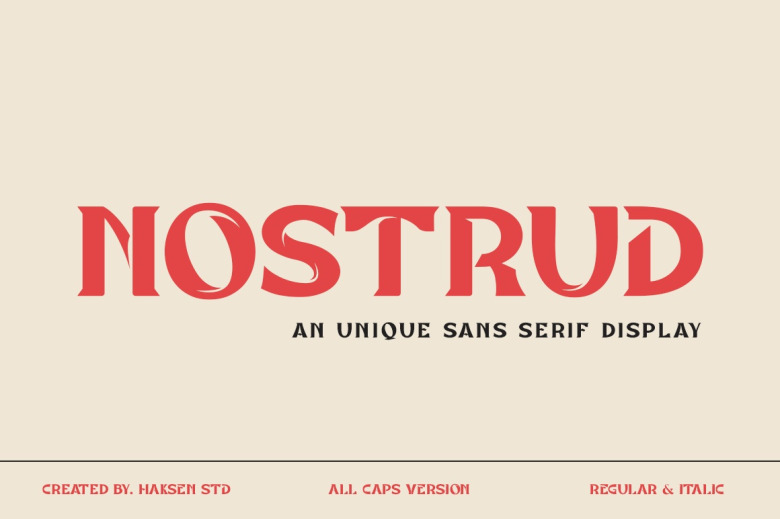
Nostrud Font
Nostrudis is a Bold Serif Display handmade font with a unique feel The typeface name is Haksen. Its extensive set of uppercase provide for a myriad of design possibilities, and is well suited for headlines, logos, posters, packaging … t-shirts you name it!
Nostrud Display Font